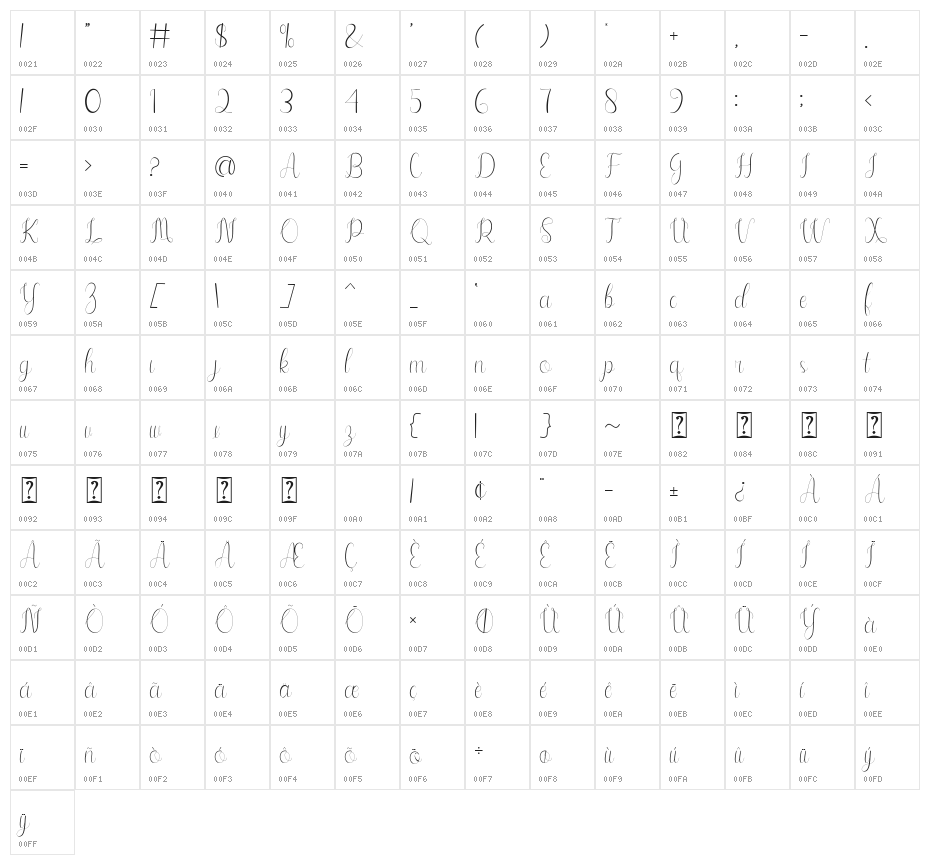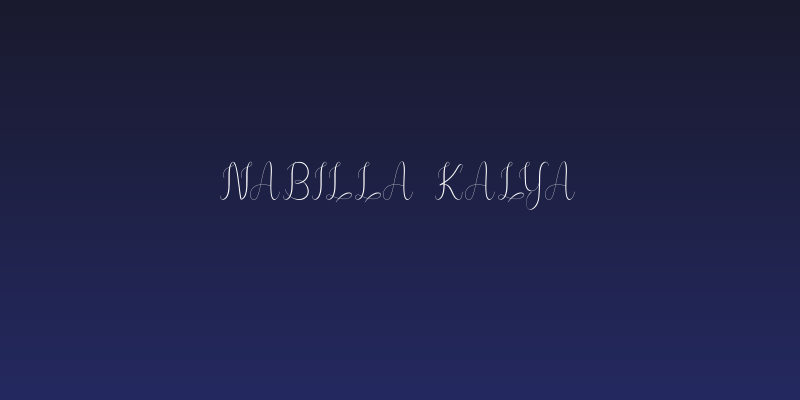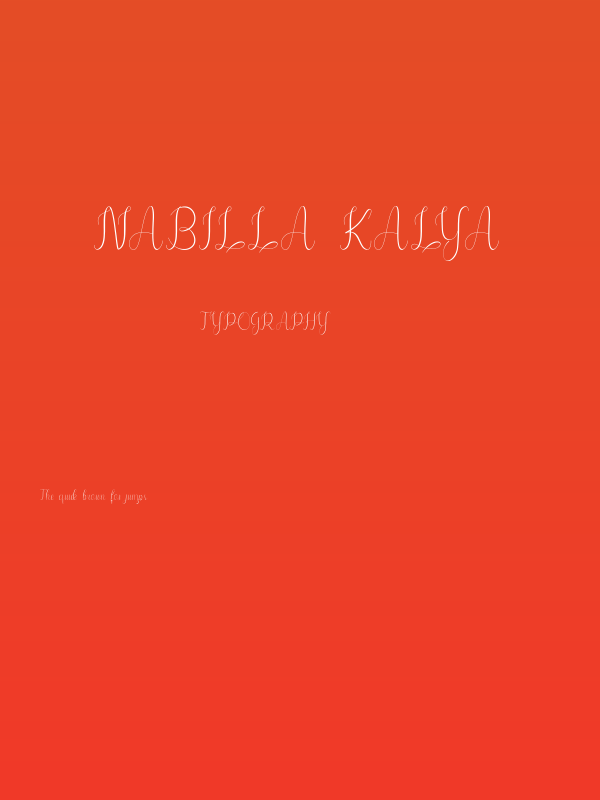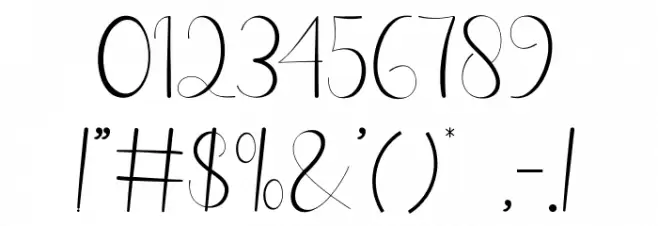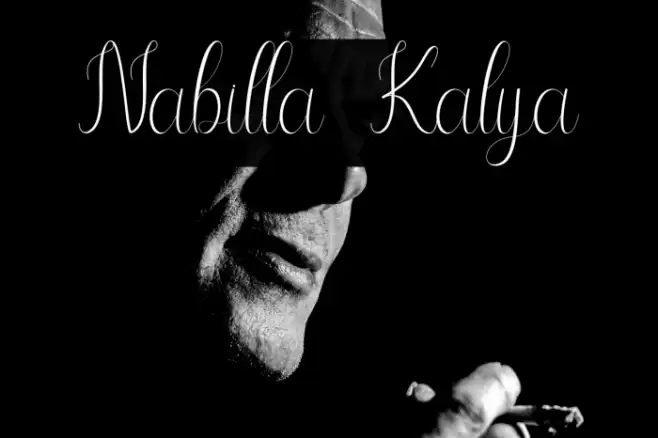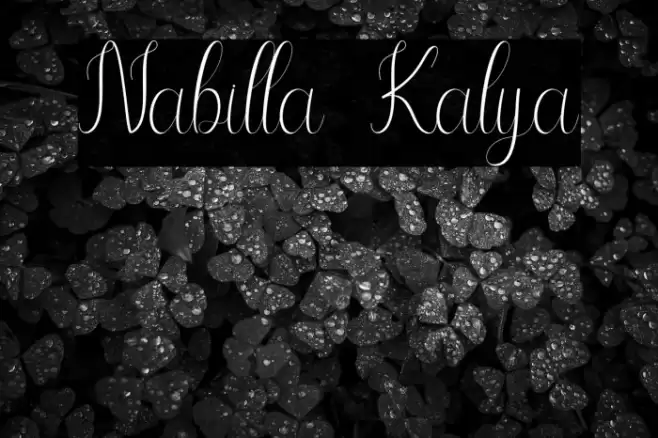
Nabilla Kalya Font
Nabilla Kalya Description
This elegant script font features a delicate and flowing design, characterized by its graceful loops and swirls. The uppercase letters are tall and slender, with intricate flourishes that add a touch of sophistication. The lowercase letters maintain a consistent style, with smooth connections that create a seamless flow. Numbers and special characters are designed with the same attention to detail, ensuring a cohesive look across all elements. The font's thin strokes and high contrast give it a refined appearance, making it suitable for formal invitations, branding, and decorative purposes.
| Overall Style | Elegant |
| Use Case | Headlines, Invitations, Decorative |
| Proposed Projects | Ideal for wedding invitations, luxury branding, greeting cards, and decorative projects. |